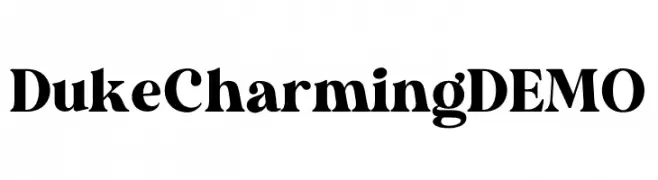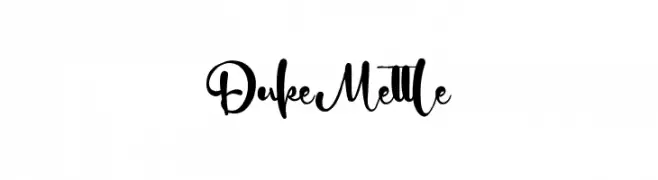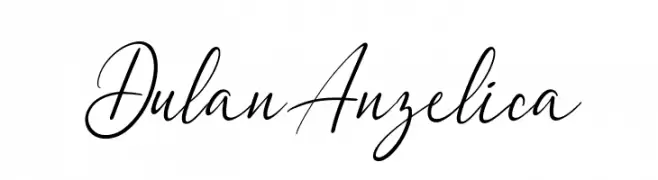
• Duke Mettle
A lively and expressive script font with flowing, cursive letterforms.
• DukeCharmingDEMO
A bold, high-contrast serif font with elegant curves and strong presence.
• DukeMettle
A lively and expressive handwritten script font with bold, sweeping curves.
• Dukeplus
An ornate, calligraphic font with intricate flourishes and a classic appeal.
• Dukungan Regular
A bold, geometric font with a modern and industrial style.
• Dulan Anzelica
An elegant, flowing script font with high contrast and graceful curves.
• Dulce-Boy
A playful, bold font with rounded, bubbly characters and unique cut-out details.
• Dulcelin
A playful and elegant script font with smooth, flowing lines and connected letters.
• Dulcet Regular
Decorative font featuring stylized female faces in geometric frames.
• Dulethia
A geometric, angular font with a futuristic and digital aesthetic.